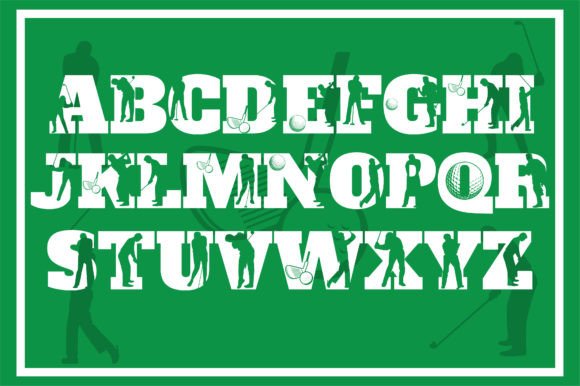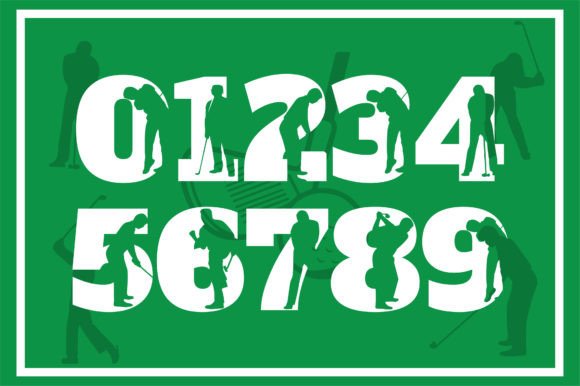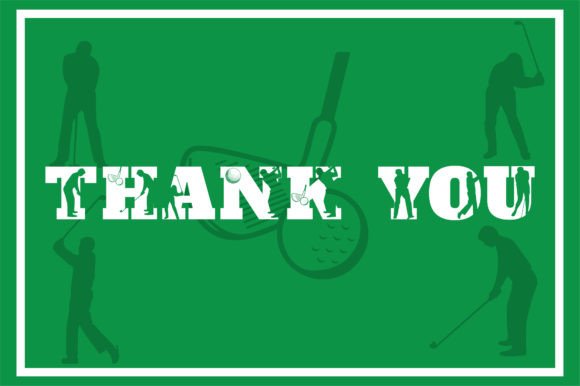
Golf Mania Font: Add a Playful Touch to Your Designs
Are you looking for a font that can add a cool and playful touch to your designs, especially for children’s sporting events? Look no further than the Golf Mania Font! This decorative font is perfect for crafters, designers, and anyone who wants to create fun and engaging content for kids.
What is Golf Mania Font?
Golf Mania Font is a unique and chunky lettered font that is designed to make your designs come alive. Its playful and energetic vibe makes it ideal for children’s sporting events, such as golf tournaments, kids’ parties, and other fun activities. The font’s bold and colorful design ensures that it stands out from the crowd, making it perfect for headlines, titles, and other design elements.
Features of Golf Mania Font
So, what makes Golf Mania Font so special? Here are some of its key features:
- Playful and energetic design: The font’s chunky and bold design gives it a playful and energetic feel that’s perfect for kids’ events.
- Easy to read: Despite its bold design, Golf Mania Font is easy to read, making it perfect for headlines, titles, and other design elements.
- Versatile: The font can be used for a wide range of design projects, from posters and flyers to t-shirts and other merchandise.
- Fun and engaging: The font’s playful design ensures that it adds a fun and engaging touch to your designs, making them more appealing to kids and parents alike.
How to Use Golf Mania Font
Using Golf Mania Font is easy! Here are some ideas for incorporating it into your designs:
- Create posters and flyers: Use Golf Mania Font to create eye-catching posters and flyers for kids’ sporting events, such as golf tournaments and kids’ parties.
- Design t-shirts and merchandise: Add Golf Mania Font to your t-shirt and merchandise designs to give them a fun and playful touch.
- Make invitations and party decorations: Use Golf Mania Font to create custom invitations and party decorations that match your event’s theme.
- Add a personal touch: Use Golf Mania Font to add a personal touch to your designs, such as customizing a child’s name or initials.
Benefits of Using Golf Mania Font
So, why should you use Golf Mania Font in your designs? Here are some benefits:
- Stand out from the crowd: Golf Mania Font’s unique and playful design ensures that your designs stand out from the crowd.
- Appeal to kids and parents: The font’s fun and engaging design appeals to both kids and parents, making it perfect for kids’ sporting events.
- Easy to use: Golf Mania Font is easy to use and can be incorporated into a wide range of design projects.
- Adds a personal touch: The font’s playful design allows you to add a personal touch to your designs, making them more special and unique.
| Font Name | Golf Mania Font |
| Author | AvocadoSVG |
In conclusion, Golf Mania Font is a cool and playful decorative font that’s perfect for kids’ sporting events. Its chunky and bold design makes it easy to read and adds a fun and engaging touch to your designs. With its versatility, ease of use, and unique design, Golf Mania Font is a great addition to any designer’s toolkit. So why not give it a try and see how it can bring your designs to life?